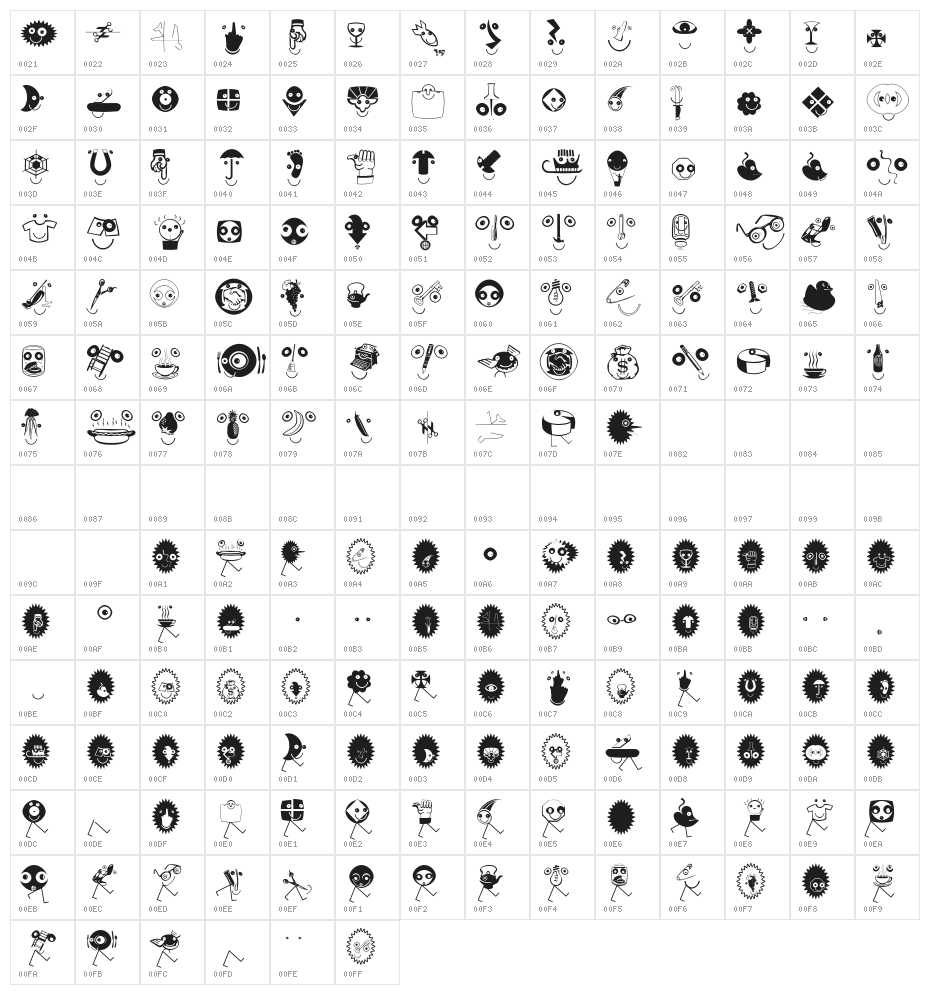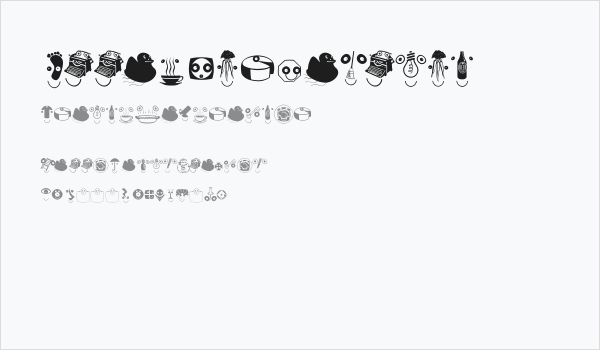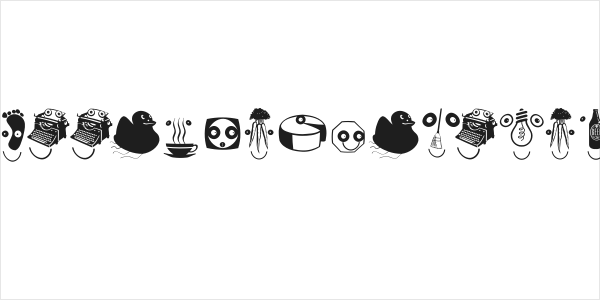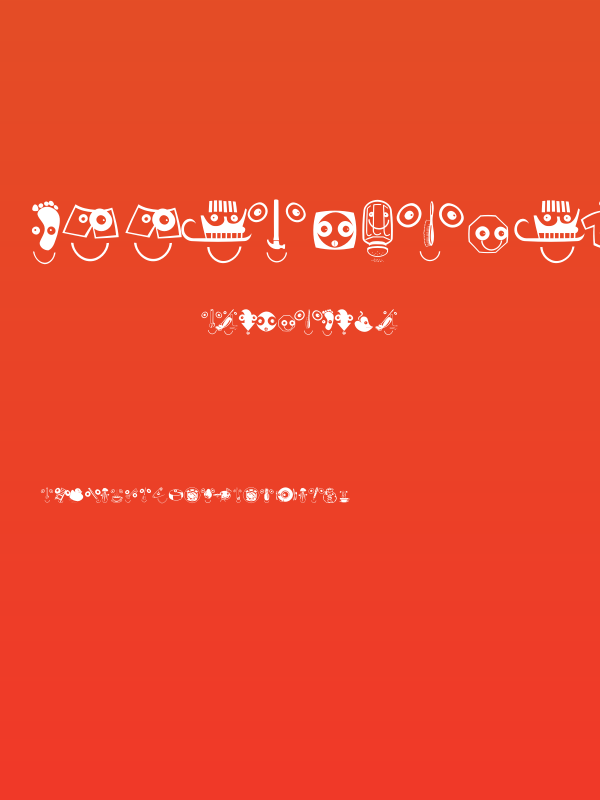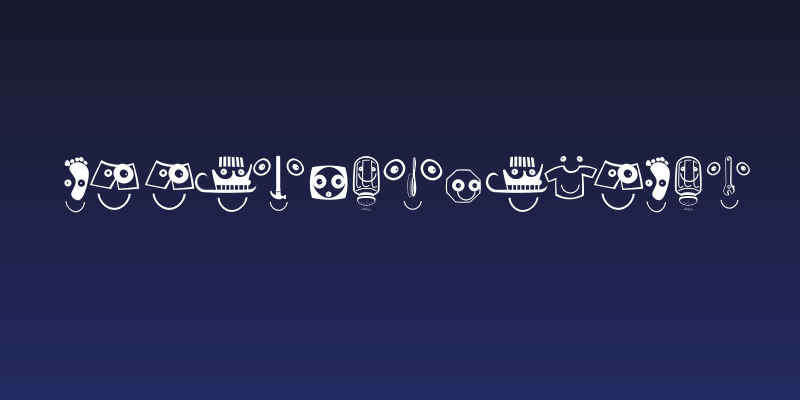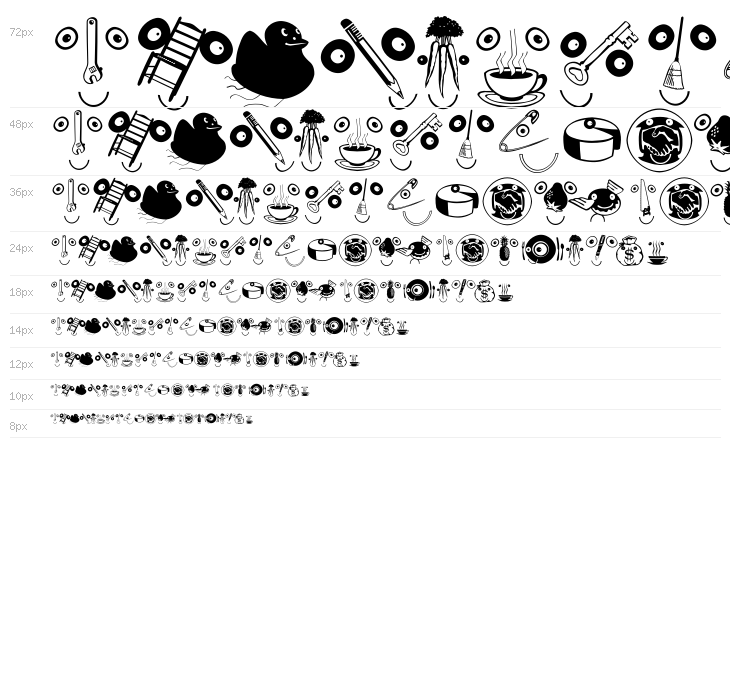
AllesNurGeklaut Font
| Anwendungsfall | Logos, Posters, Artistic Projects |
| Vorgeschlagene Projekte | Ideal for children's books, creative posters, playful branding, and any project that benefits from a fun and artistic style. |